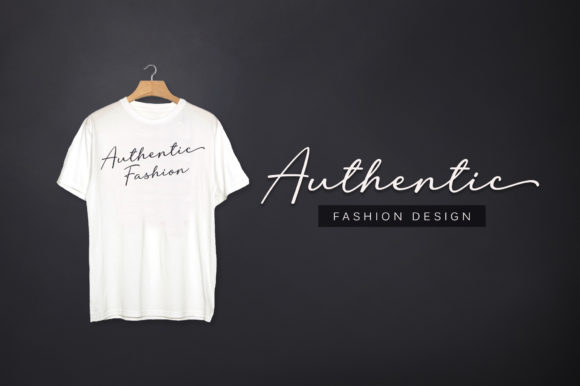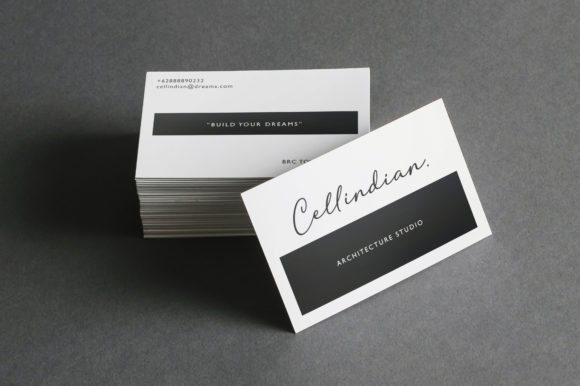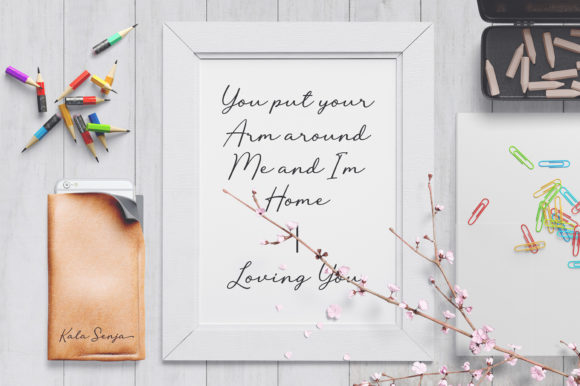
Lovely Flowers Font
Lovely Flowers is a relaxed and cursive script font. Not too thin and not too thick, balanced and varied, this font was designed to enhance the beauty of your projects. This font is PUA encoded which means you can access all of the glyphs and swashes with ease!